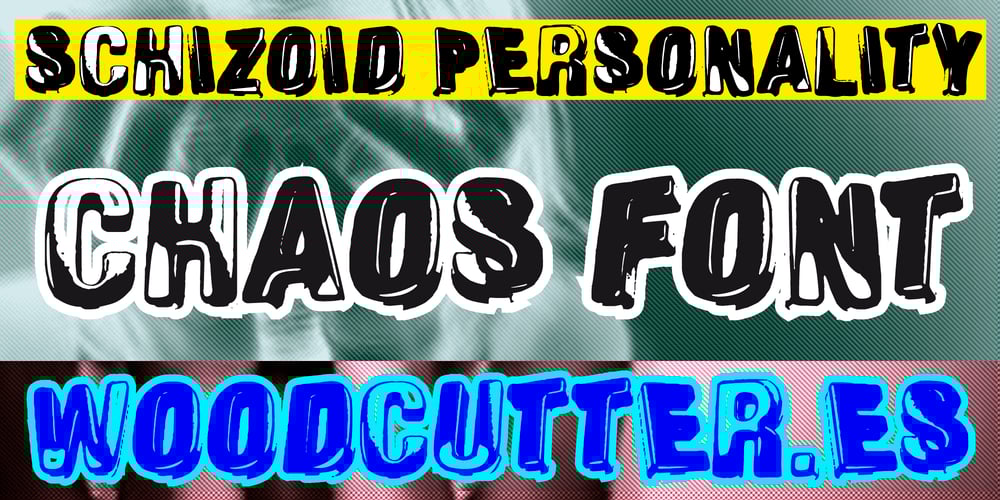
Schizoid Personality Font Family was designed by Jordi Manero and published by Woodcutter. Schizoid Personality contains 1 styles and family package options. “Shizoid Personality” is a completely chaotic typeface that captures the essence of disorder and dissonance. Each letter, in three dimensions, appears in various positions and worn-out styles, all in uppercase. This font is perfect for projects that aim to convey a sense of controlled chaos and overflowing creativity. Ideal for horror movie titles, alternative event posters, or any design needing a unique and disturbing visual impact. With “Shizoid Personality,” every word seems to come alive in a world of artistic disarray.